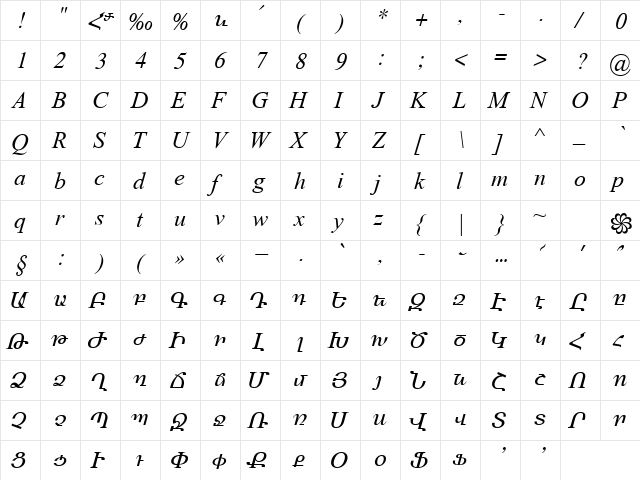
ArTarumianMatenagir Italic Font Preview
ArTarumianMatenagir Italic
Design Context for ArTarumianMatenagir Typeface
ArTarumianMatenagir is a composed and adaptable typeface that performs quietly and consistently across a wide range of design contexts. Its italic angle brings a sense of urgency and motion to the letterforms.
Pro Tip: Try ArTarumianMatenagir for annotation and caption copy alongside an upright companion — the contrast in angle creates a dynamic but ordered typographic system.